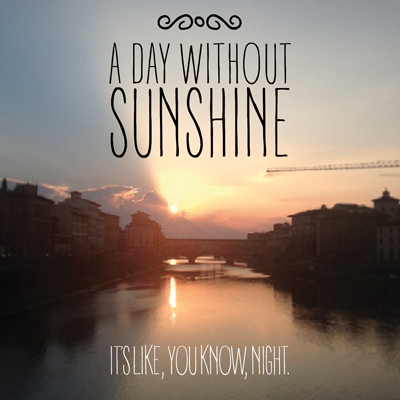
Note of the authorA DAY WITHOUT SUN is an handmade delice with a hipster flavour, part of the
Panforte Pro Family, a three-weights handmade font with
small caps,
cyrillic and
greek.
Panforte Pro is the typographic problem solver with a humble face. Hand drawn in easy big strokes, its a very condensed typeface that allows you to typeset easily long texts. Lovers of world cuisine will be delighted to discover that it supports over forty languages using the latin alphabet, spiced with hand-picked diacritics and comes also with a tasty side dish of greek and cyrillic characters. It features a set of proper
small case character set and alternate oldstyle numerals, as well as a set of
repeating letter ligatures to avoid that metallic taste of repeating double characters.